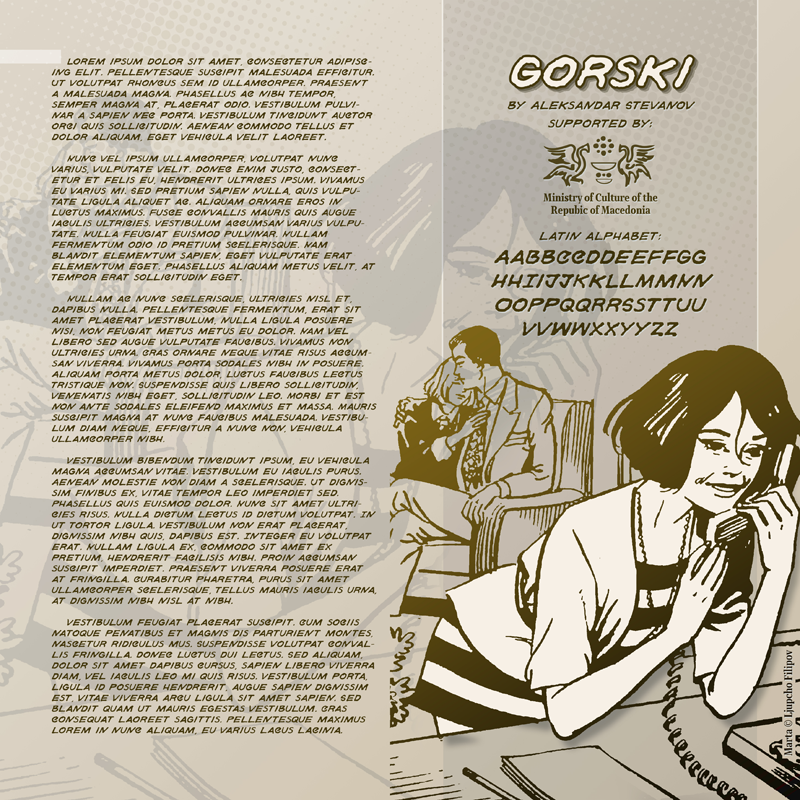
Gorski Font
About Gorski Font
Gorski is a delicate handwritten font in the style that you find most in comic books. This beautiful font will add a fun & vintage, feel to your designs.